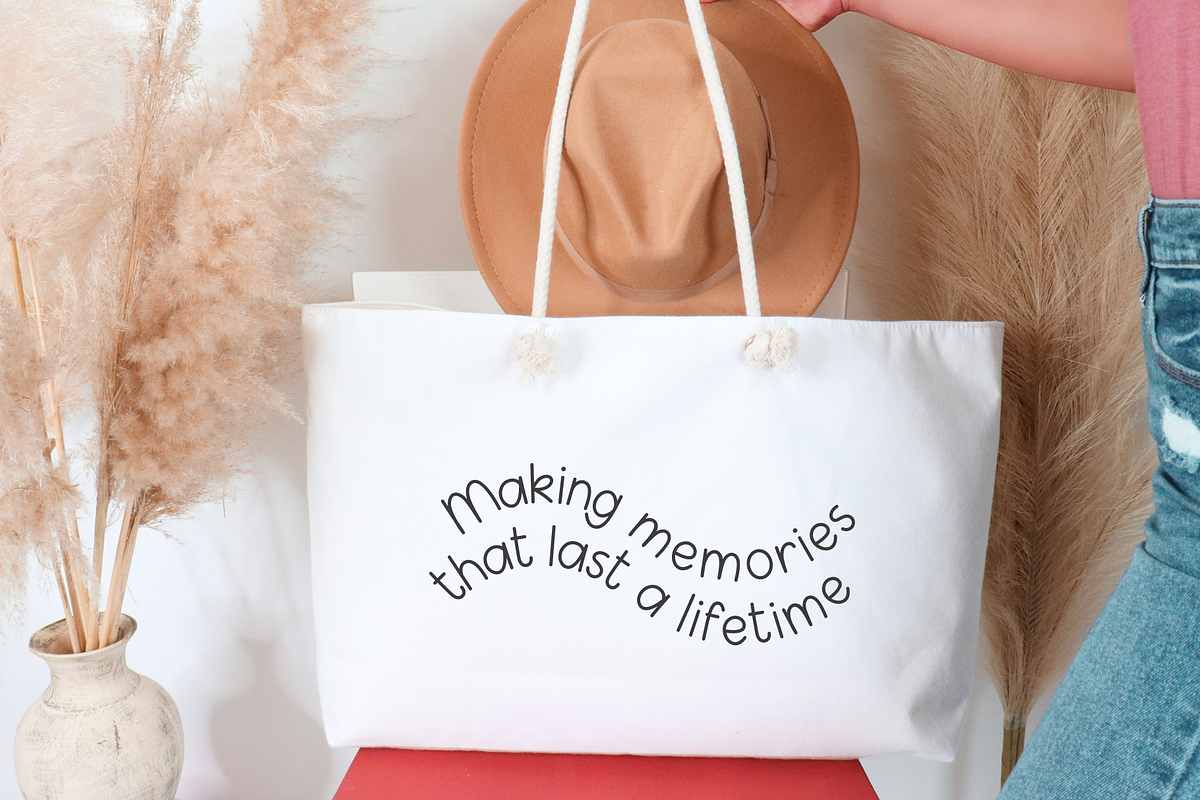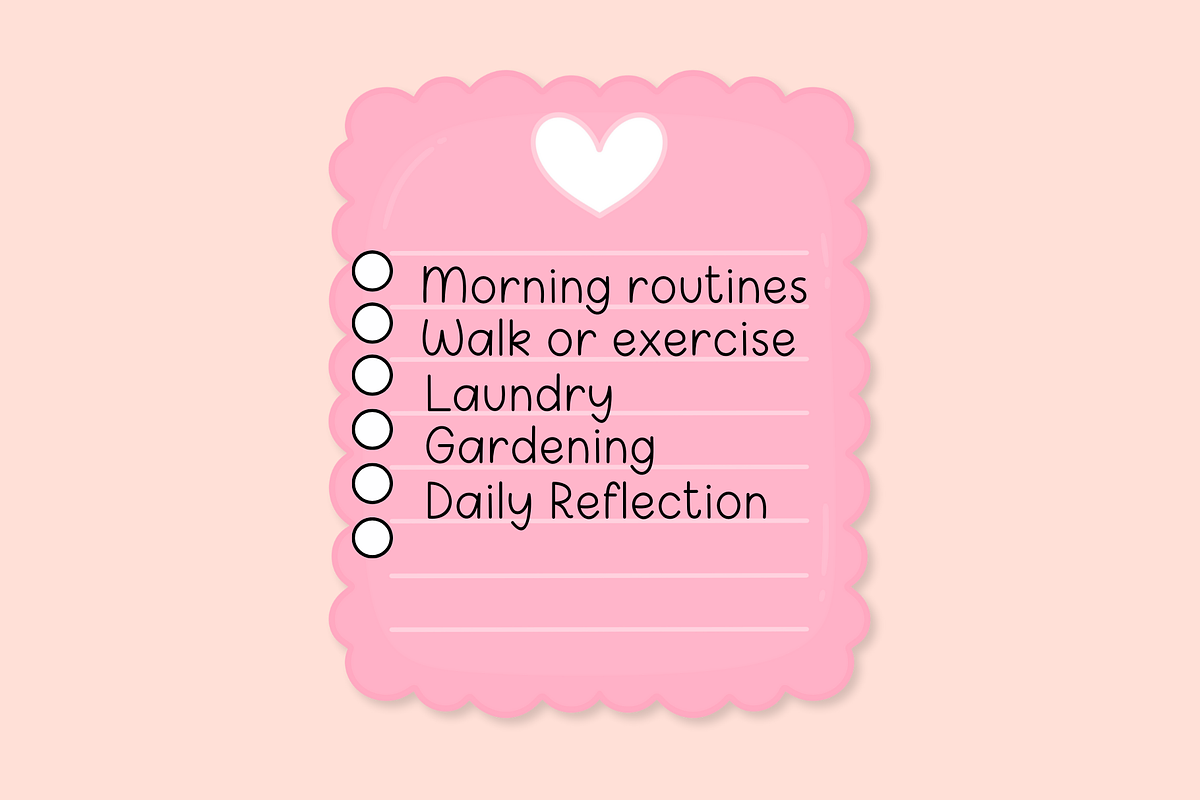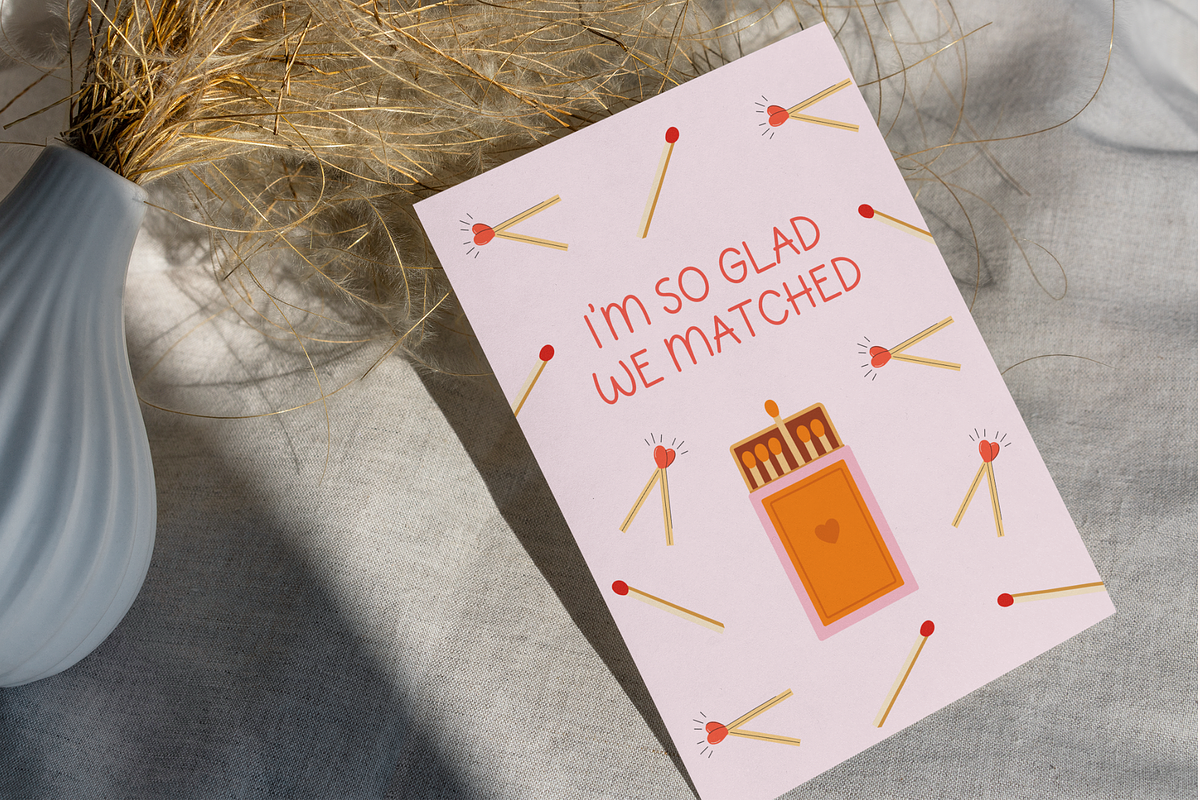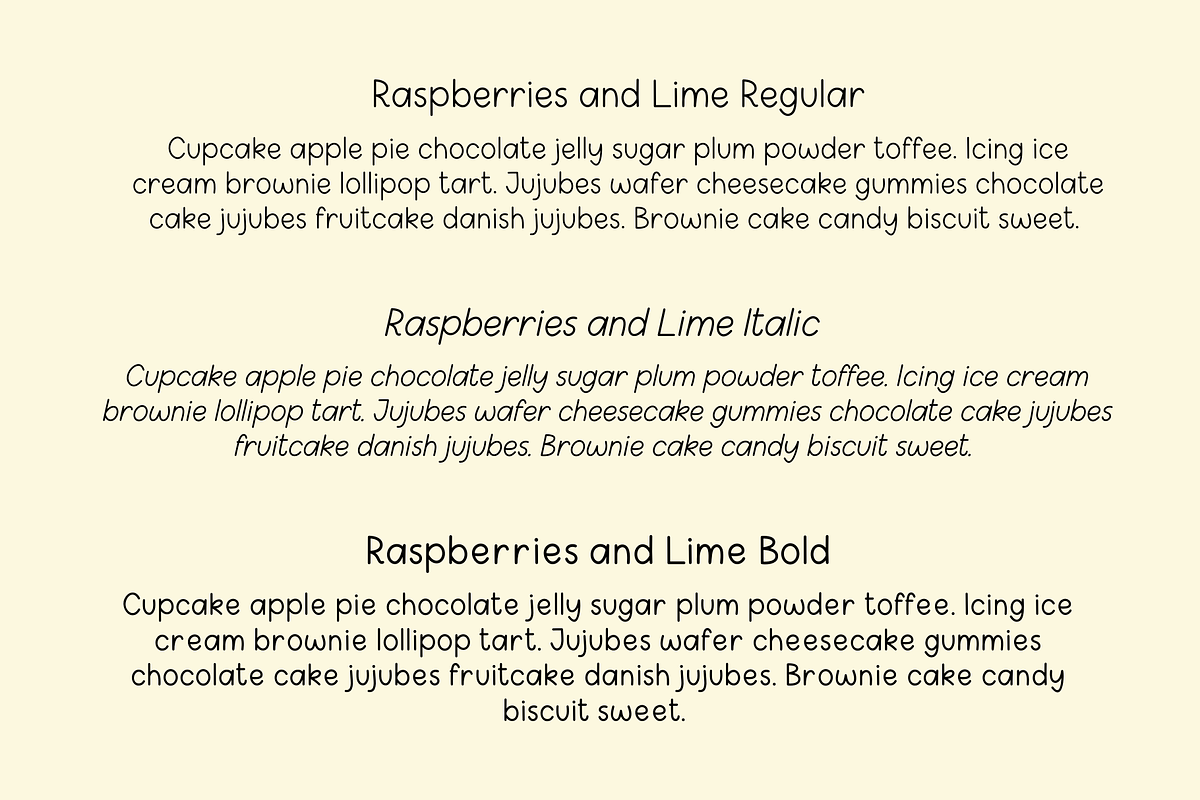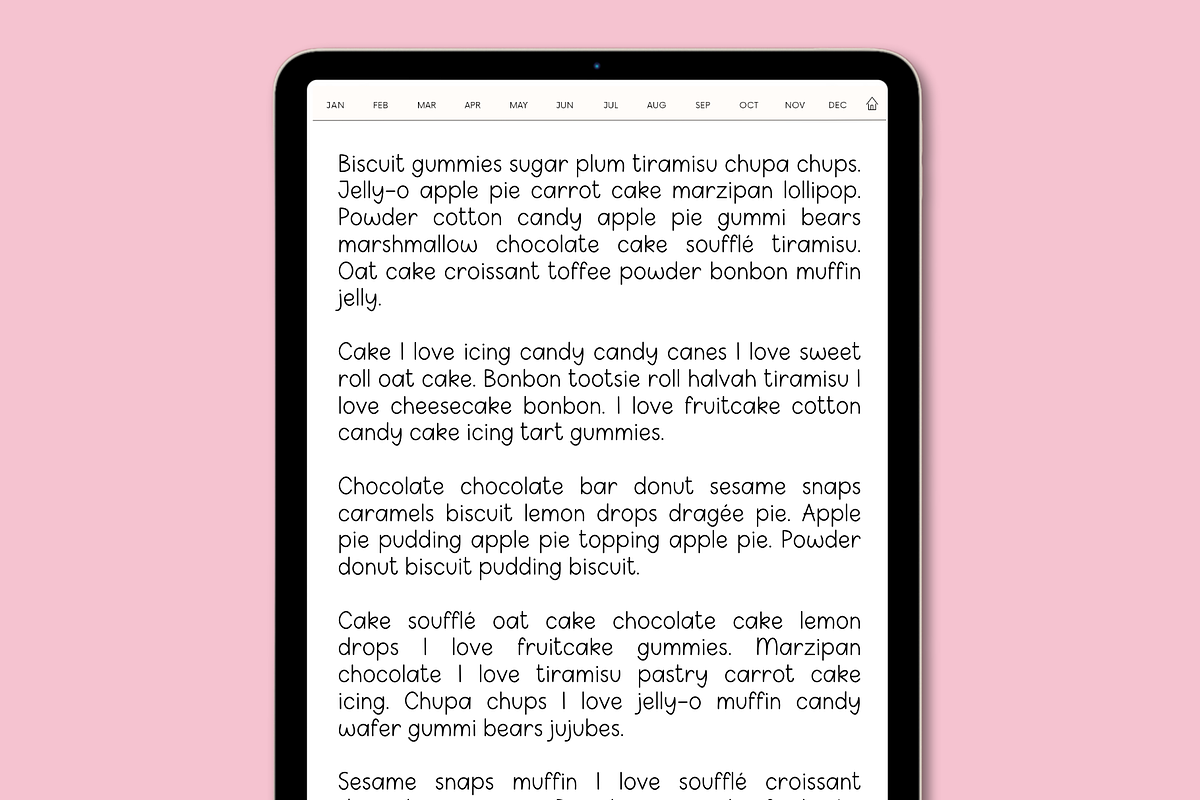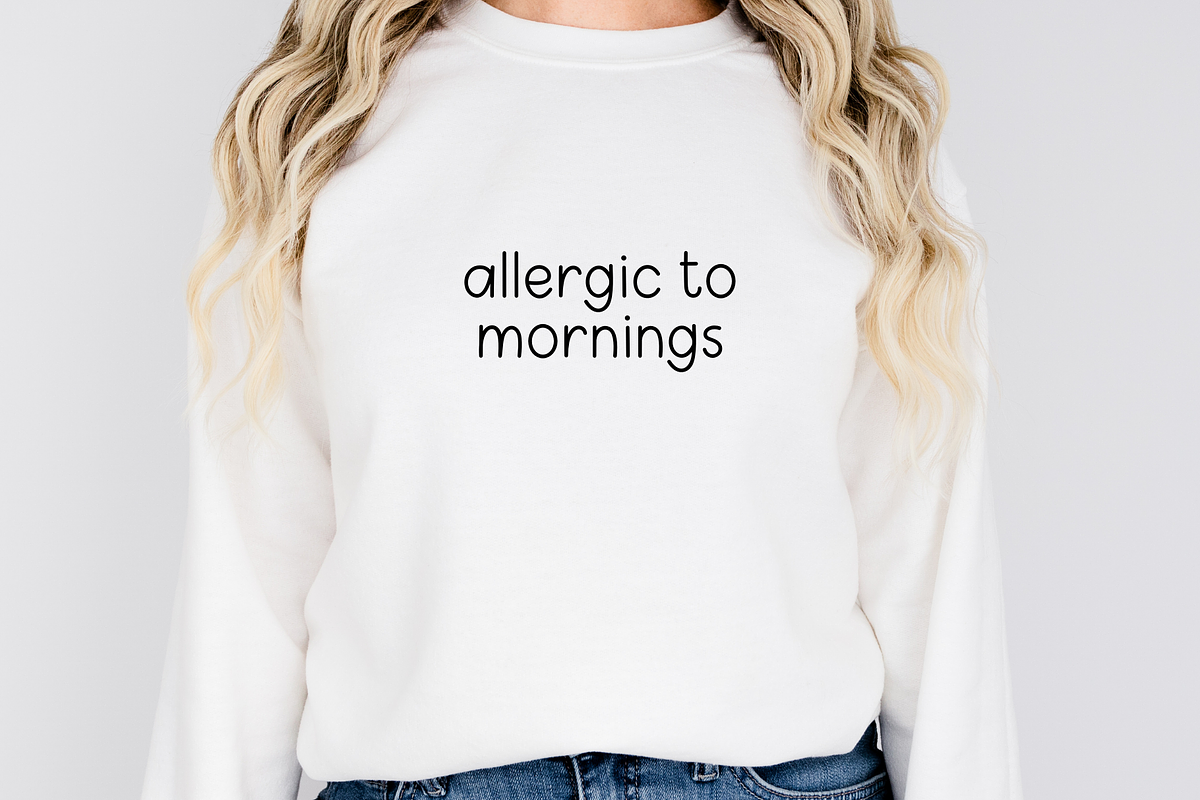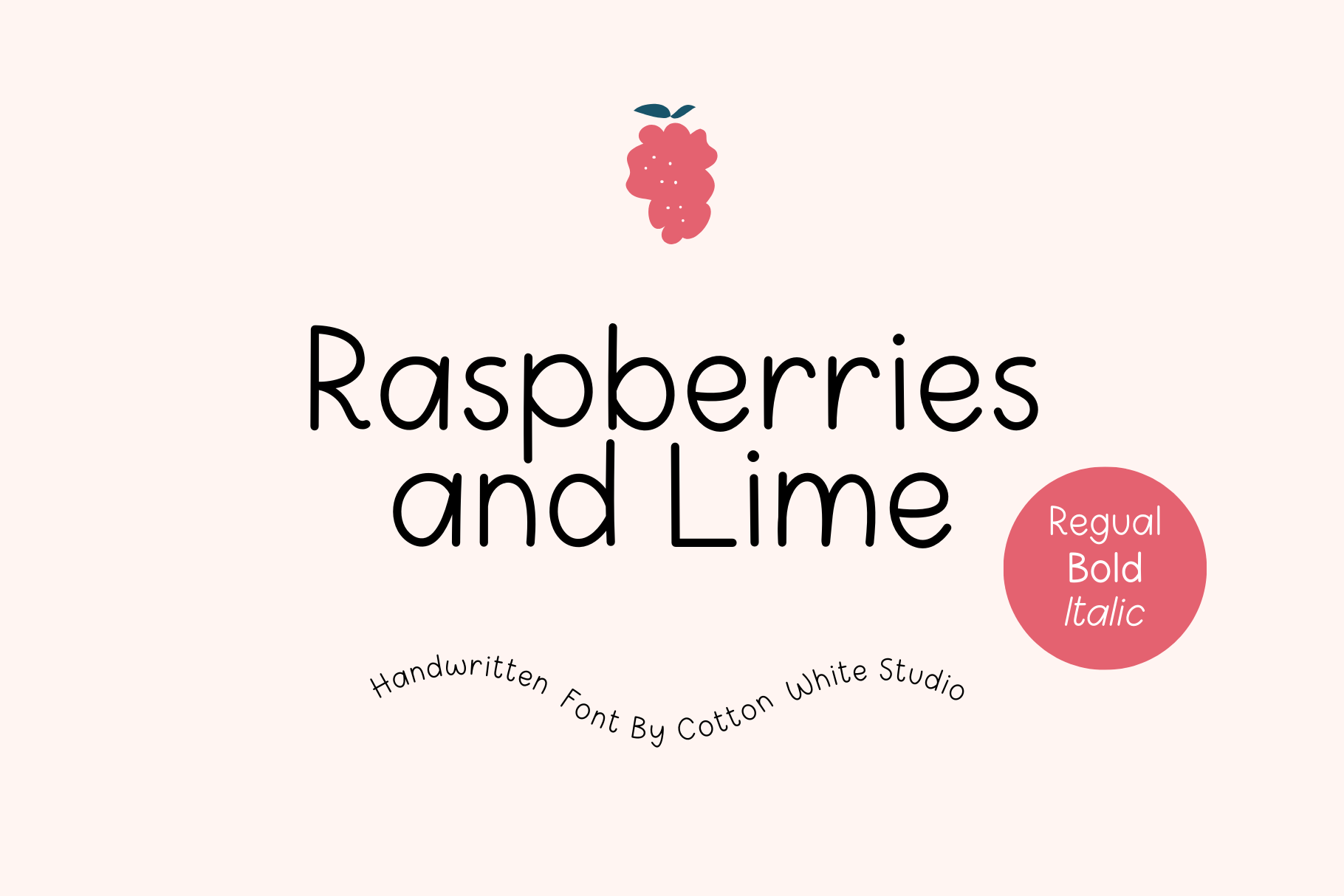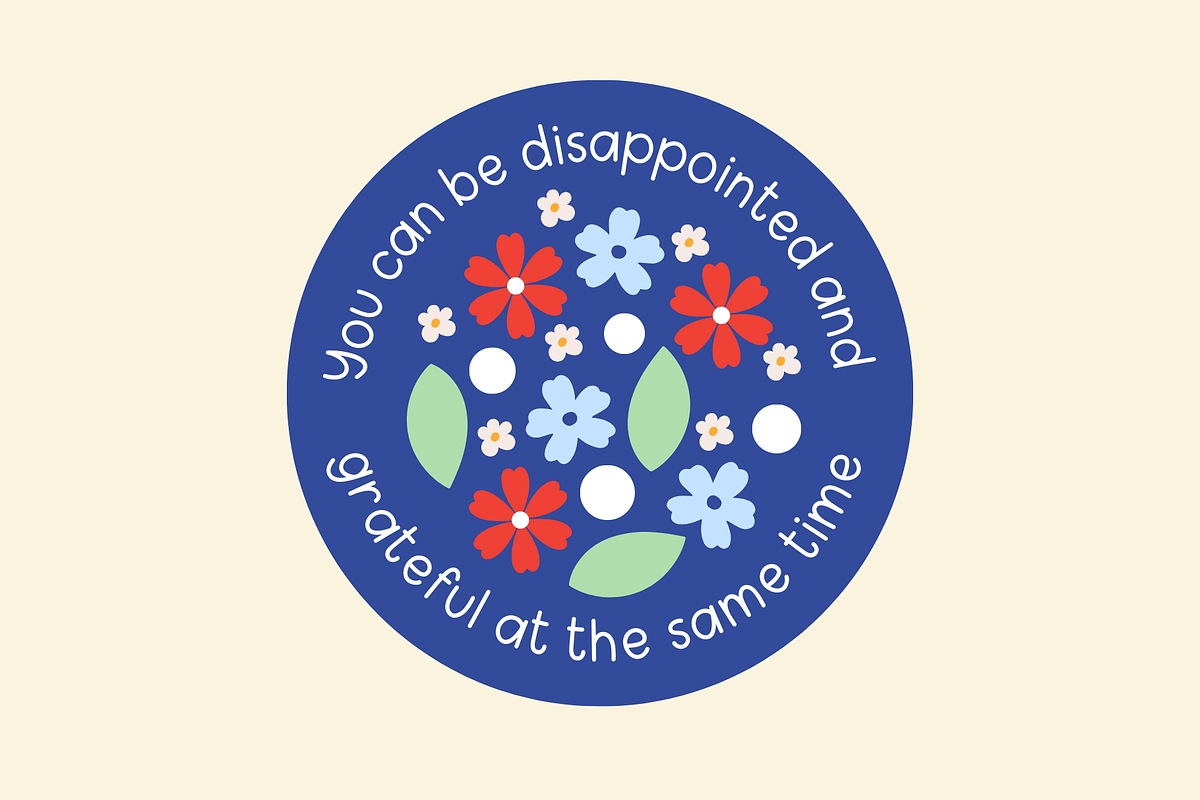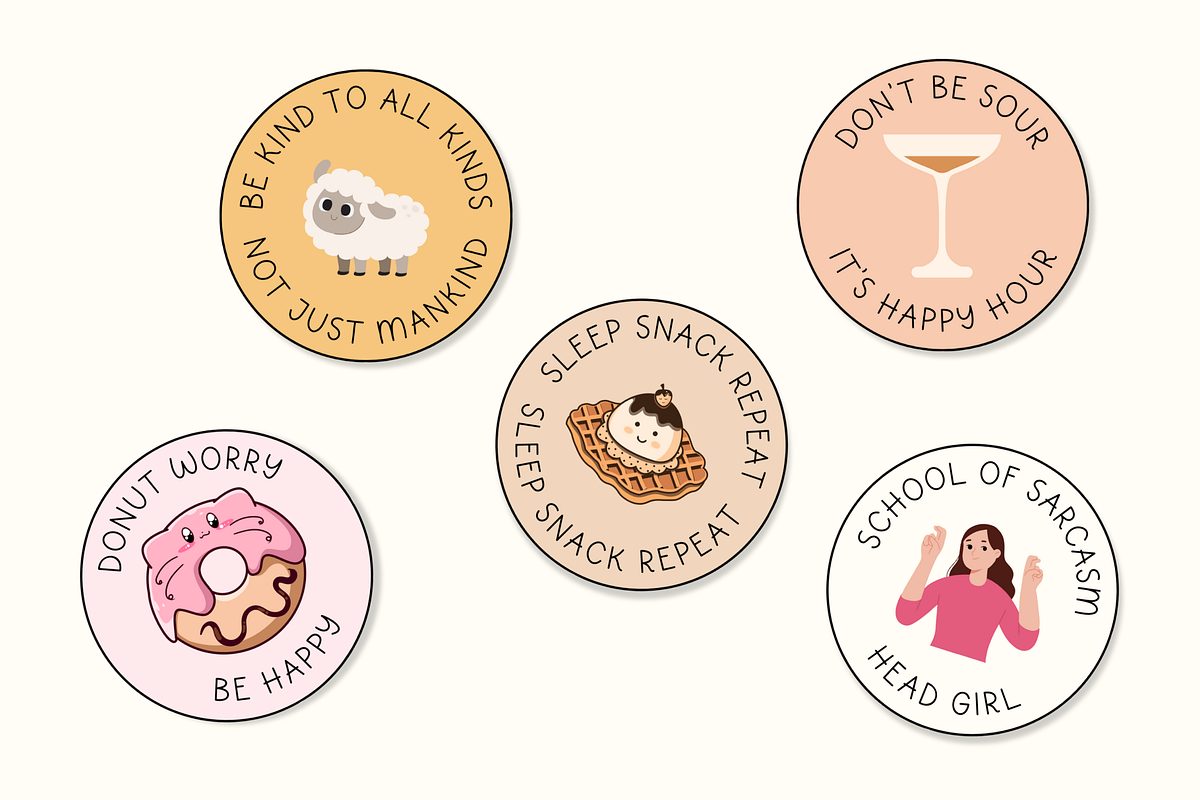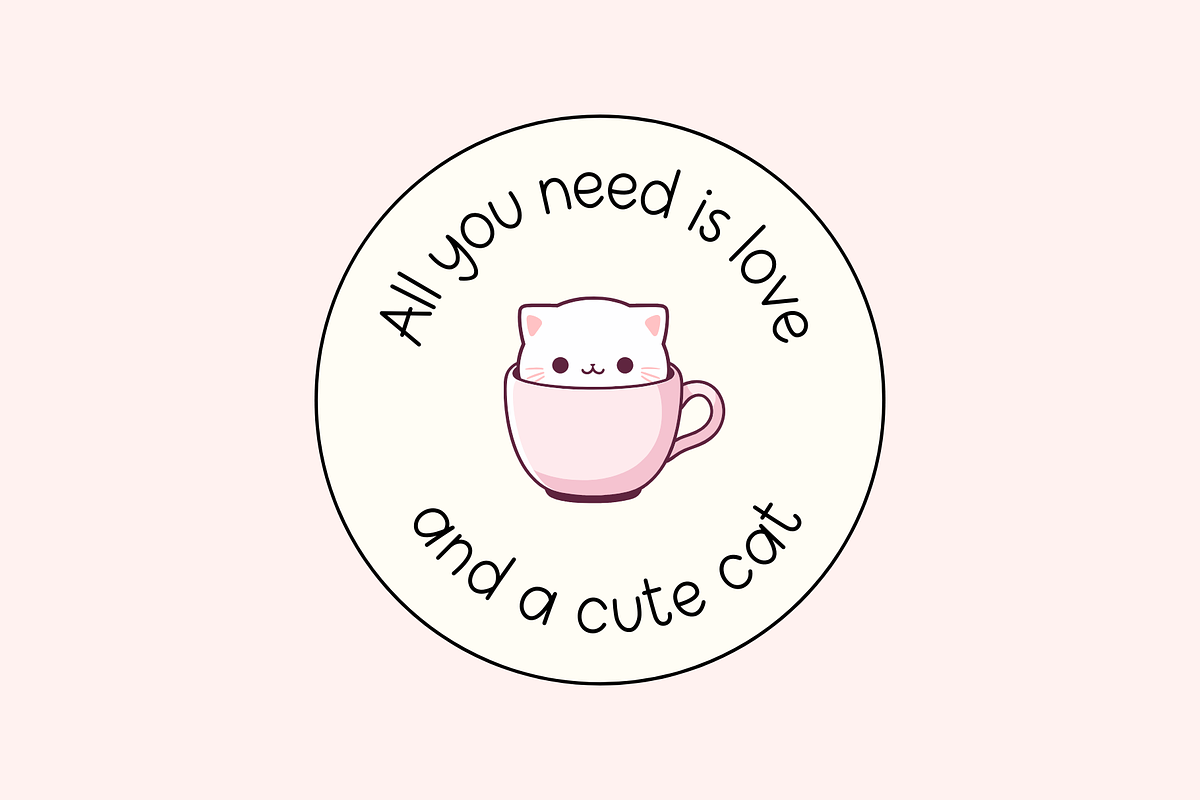
Raspberries and Lime Cute Font
A font to jazz up your digital planner, journal, invitations, note-taking, or anything that requires a handwriting look. Or use it with your projects on in Cricut, Adobe Illustrator, Photoshop, Canva Pro, Silhouette, Procreate, Affinity, Notability, GoodNotes, and more!